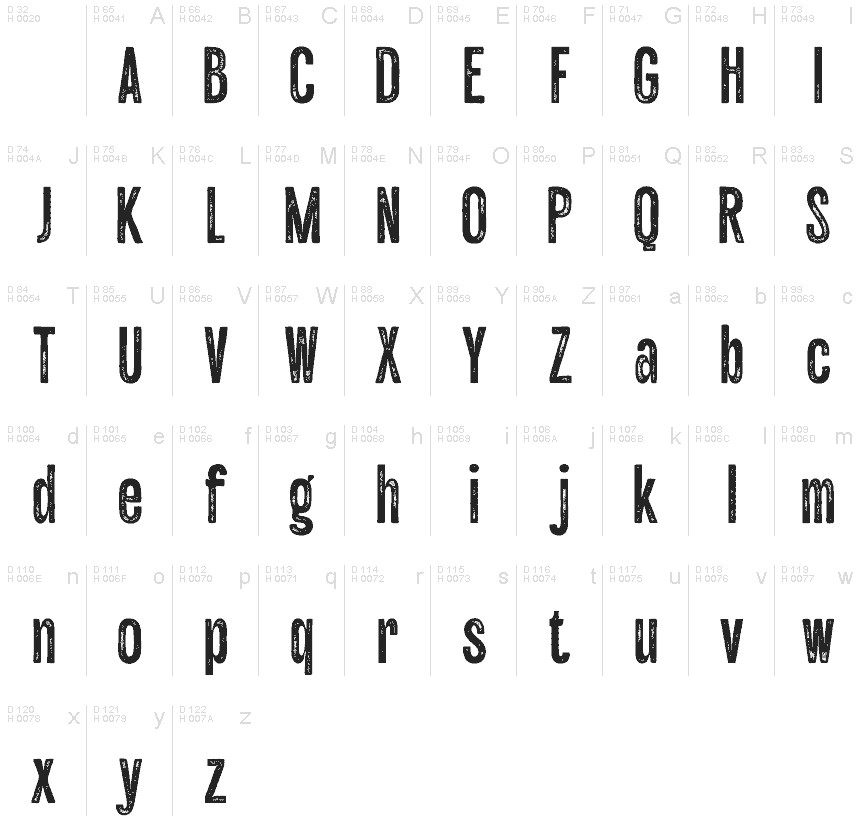
Galber Vintage Demo Stamp
Galber Vintage Stamp font is a free special effect typeface from Craft Supply Co built off textures and vintage. Each character differs from the others even though it looks similar in style. The width is condensed which stands out further with the amount of eroding in each letter.
This substance font is useful for packaging, labeling, posters, apparel, commercial ads, iPhone cases, and other branding items. In addition to professional uses, it will work nicely for school projects or social media of business persons or regular users.